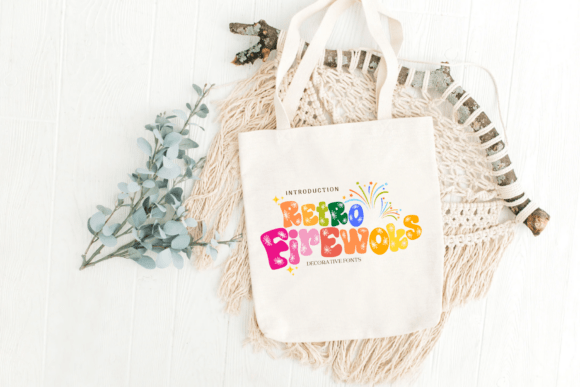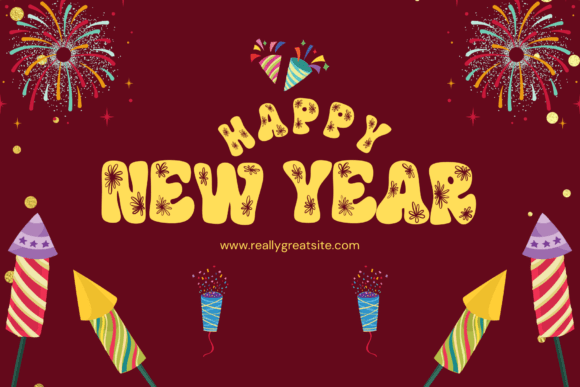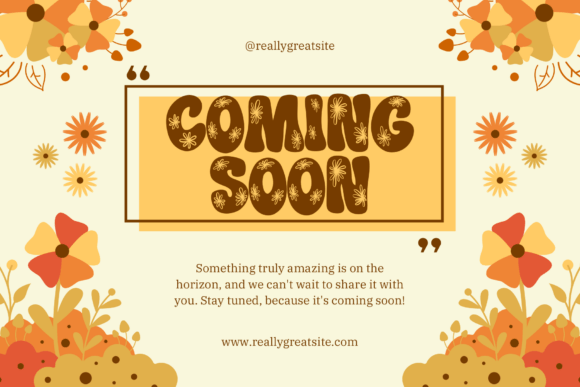
Retro Firewoks Font
Retro Fireworks is a vibrant and explosive decorative font that captures the joy of celebration. With floral accents and a nostalgic retro flair, this font is great for festive branding, holiday posters, and party graphics.